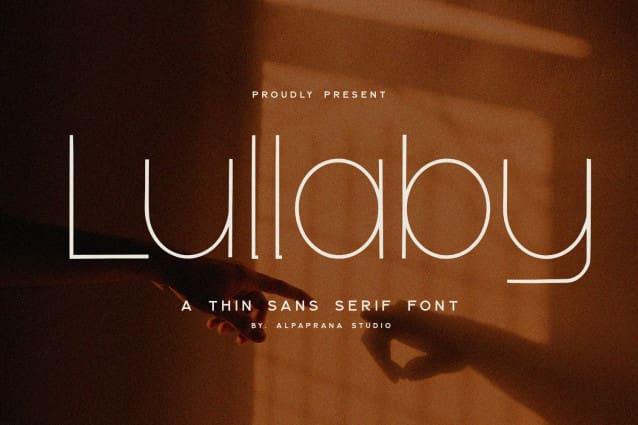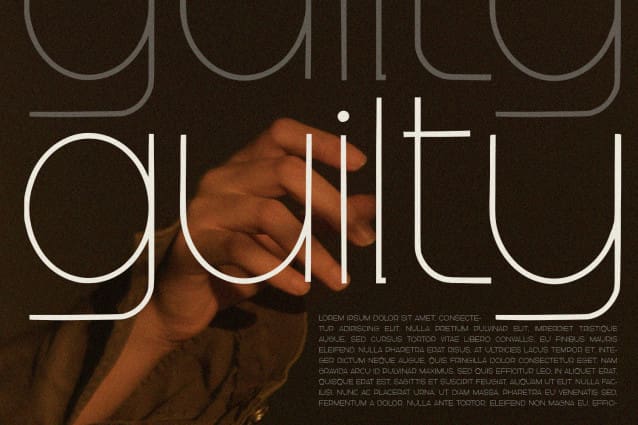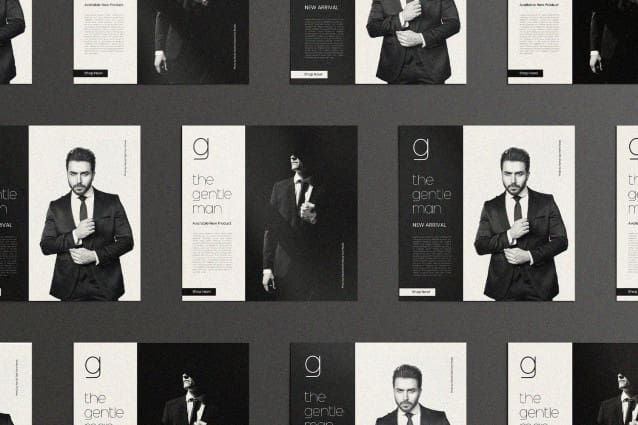
Lullaby Font
Lullaby Font is a sans serif font with elegant and modern feels. It will be perfectly used for Branding, Logo Design, Lettering, Logotype, Clothing, Poster, magazine, packaging, posters, shopping bags, t-shirts, book covers, photography, special events and other design project.